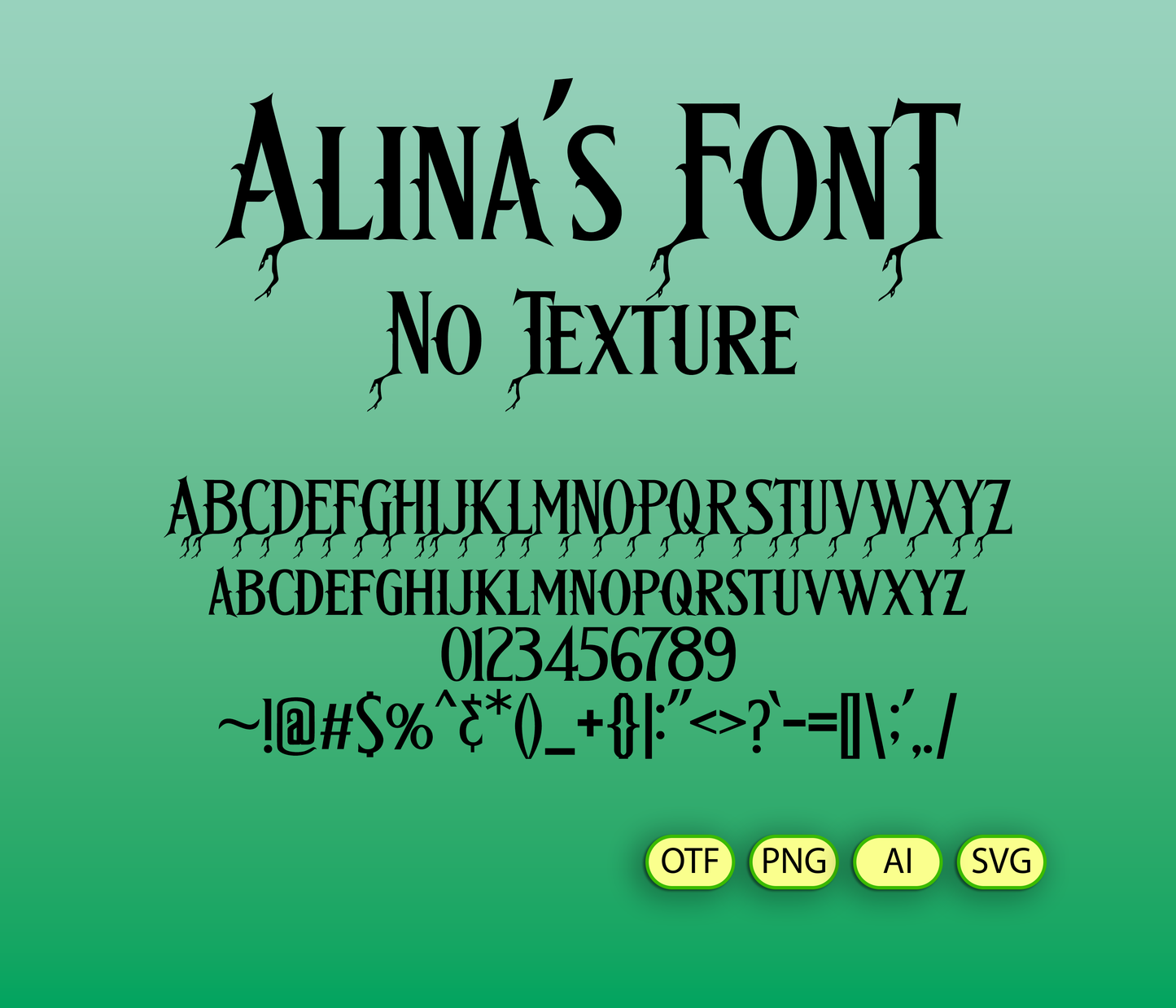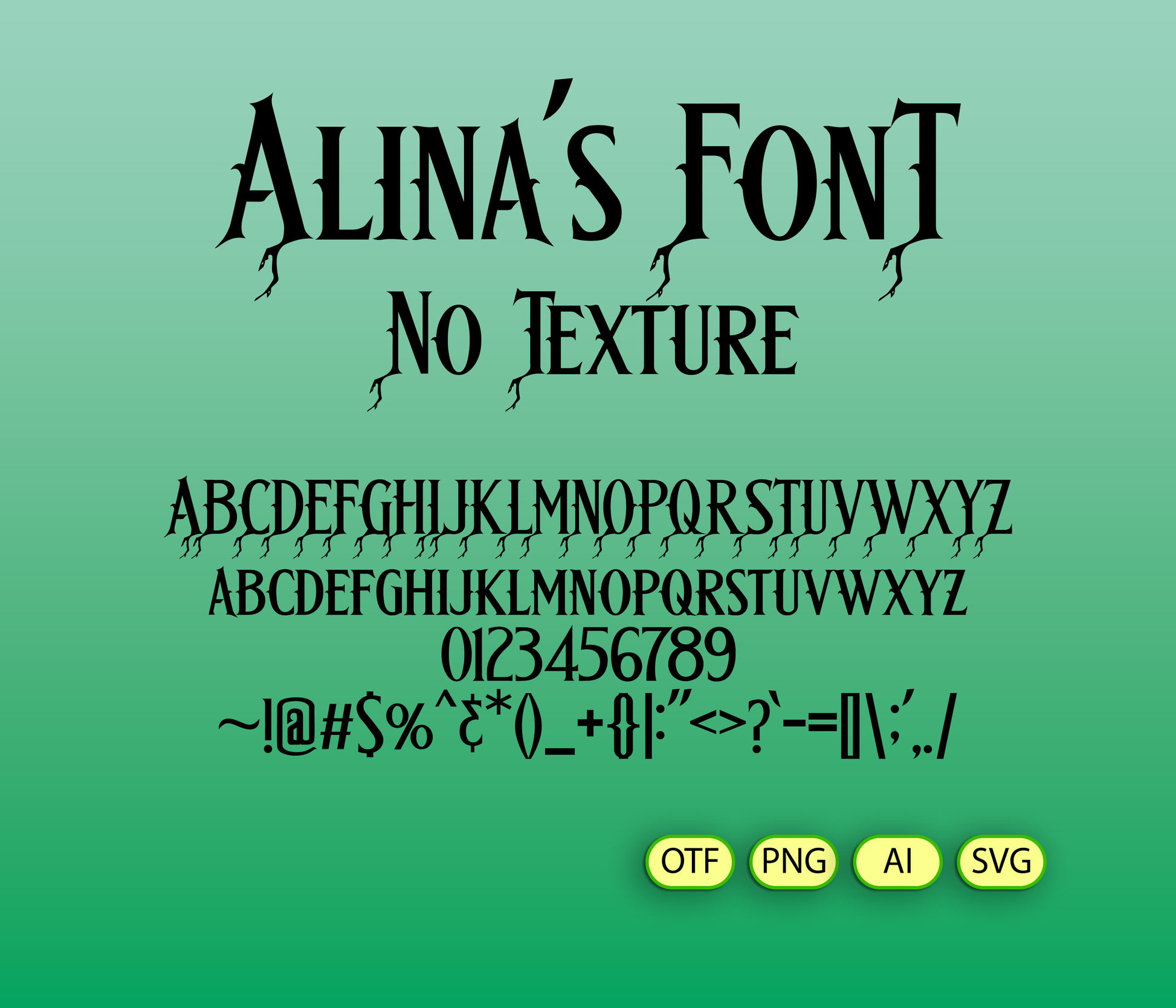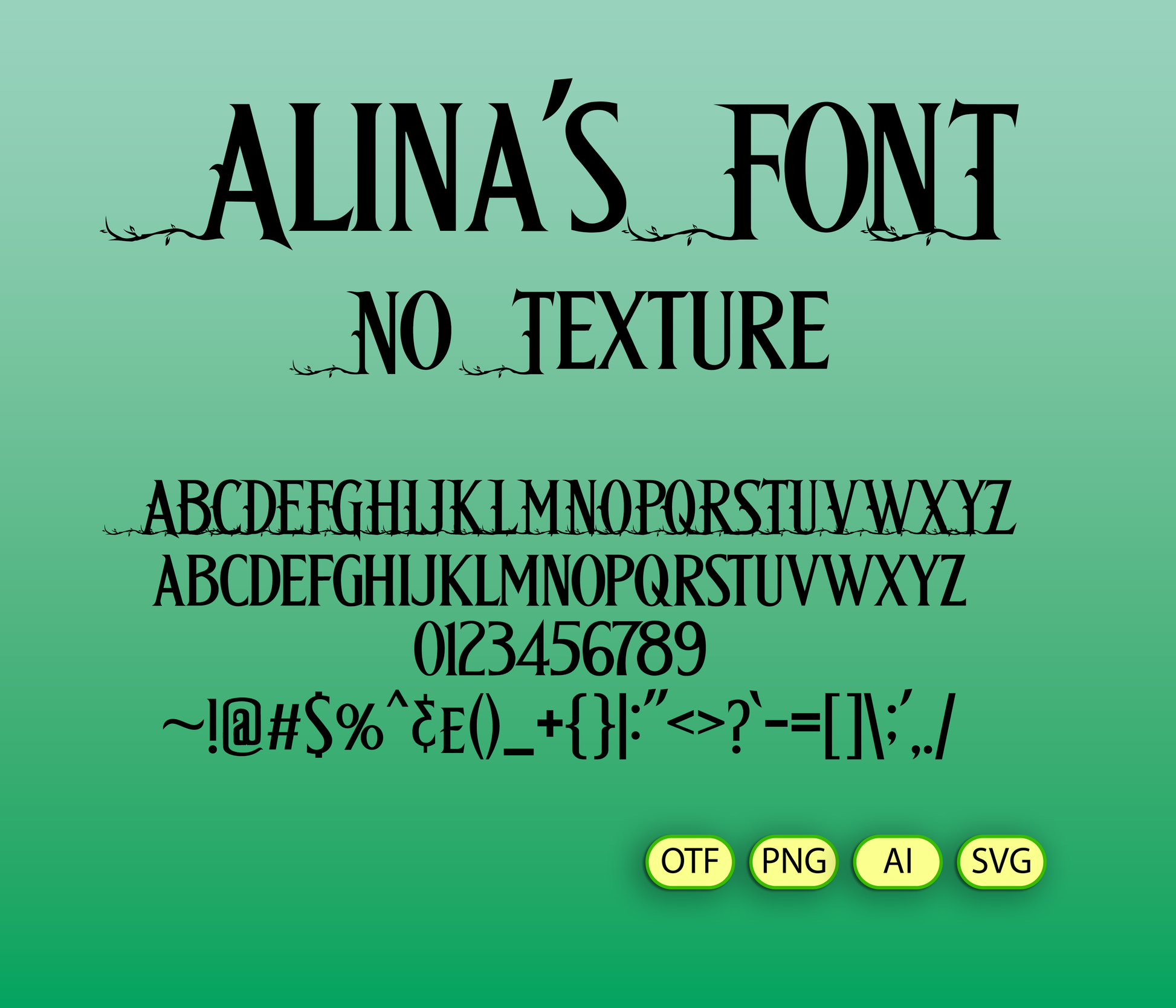
Enchanting Sitcom Spellbinder Font
Dive into the world of magical mayhem with our Enchanting Sitcom Spellbinder Font, inspired by the catchy tune of a certain crafty sorceress from a beloved superhero TV series. This font captures the essence of retro television themes with a delightfully wicked twist, perfect for fans, designers, and creatives looking to infuse their projects with magical nostalgia.
Our Enchanting Sitcom Spellbinder Font features playful, retro-inspired characters with a hint of arcane allure, reflecting the blend of classic TV charm and supernatural themes. Ideal for:
- Fan-created artwork and costume accessories
- Themed soirée invitations and decorations
- Vintage-style logos and branding
- Web page headers and digital illustrations
- Apparel and collectible item design
- Social media content for television enthusiast communities
- Novel covers and promotional posters with a nostalgic flair
- Gaming elements for projects with a magical retro ambiance
Our font pays homage to the delightfully deceptive world of supernatural sitcoms, empowering your designs with its clever and engaging spirit. Whether you're crafting fan tributes, designing themed gatherings, or adding a touch of retro enchantment to personal projects, this font communicates the essence of classic TV charm with a mystical twist.
Ready to weave some bewitching nostalgia into your creations? This font is your magical tome to designs that blend vintage appeal, sorcery, and a dash of wickedly good fun.